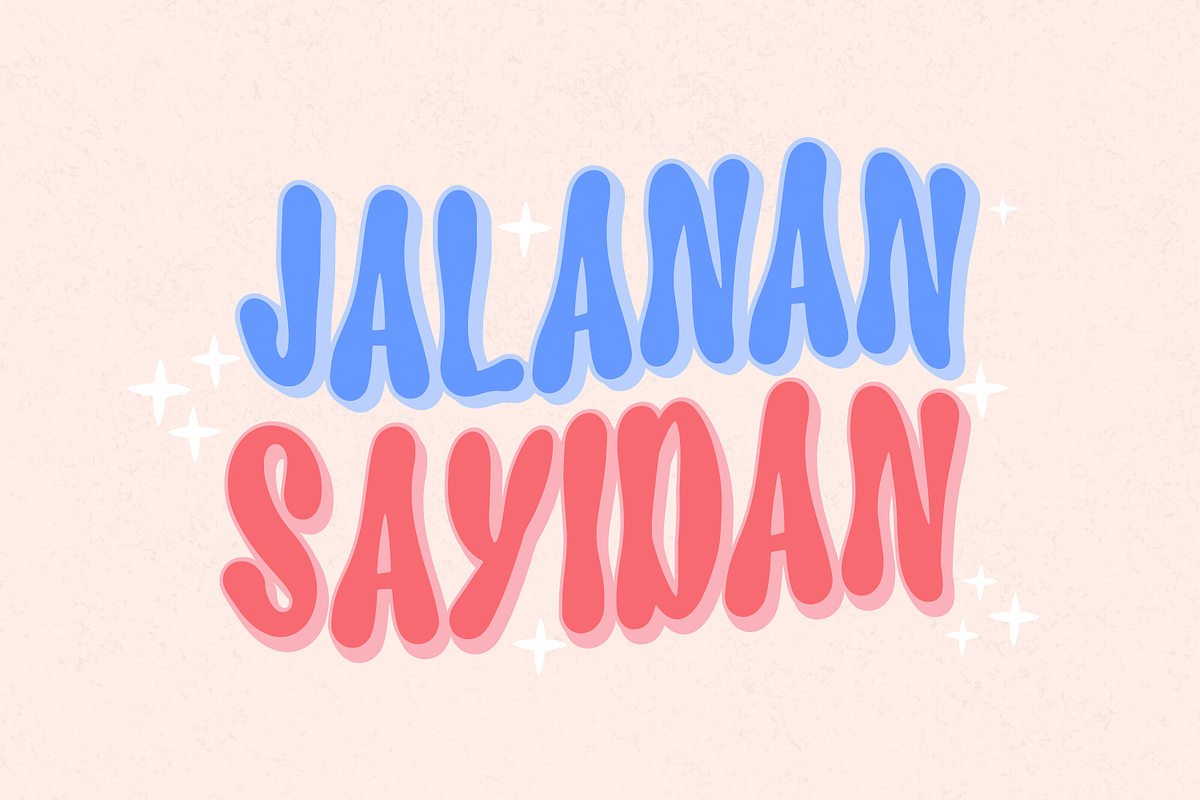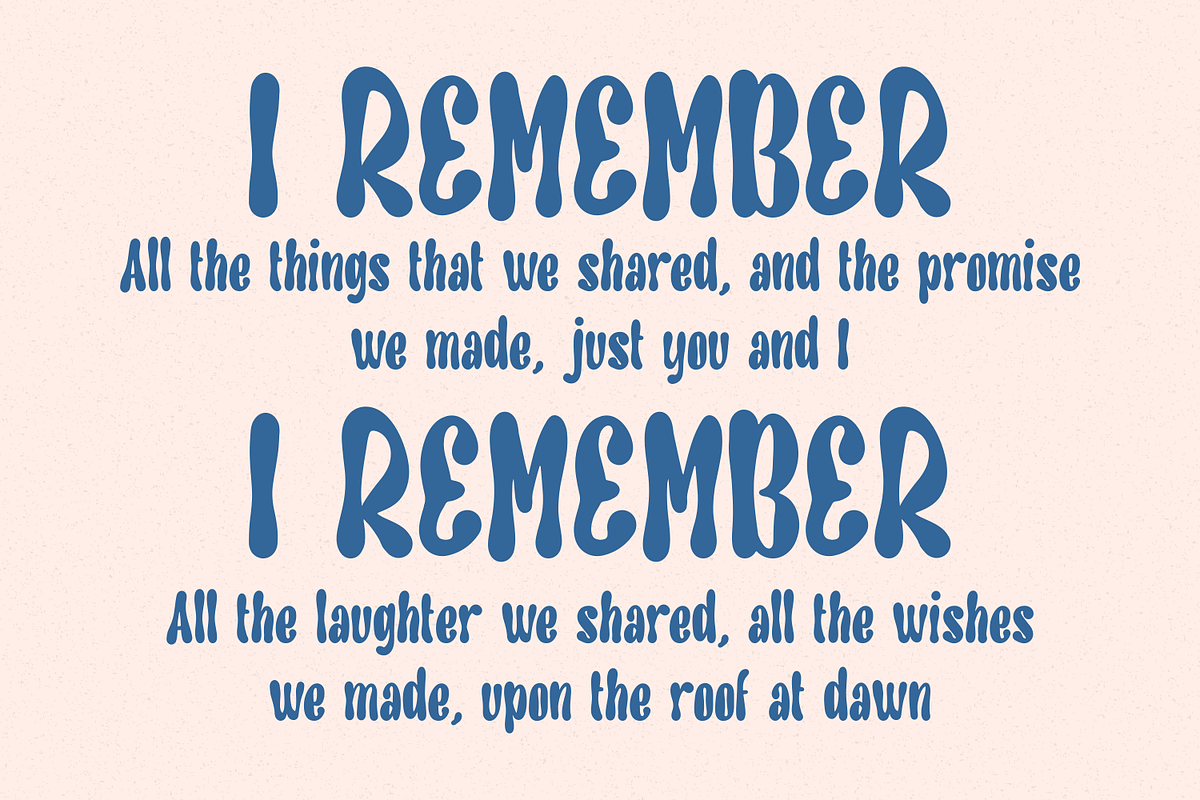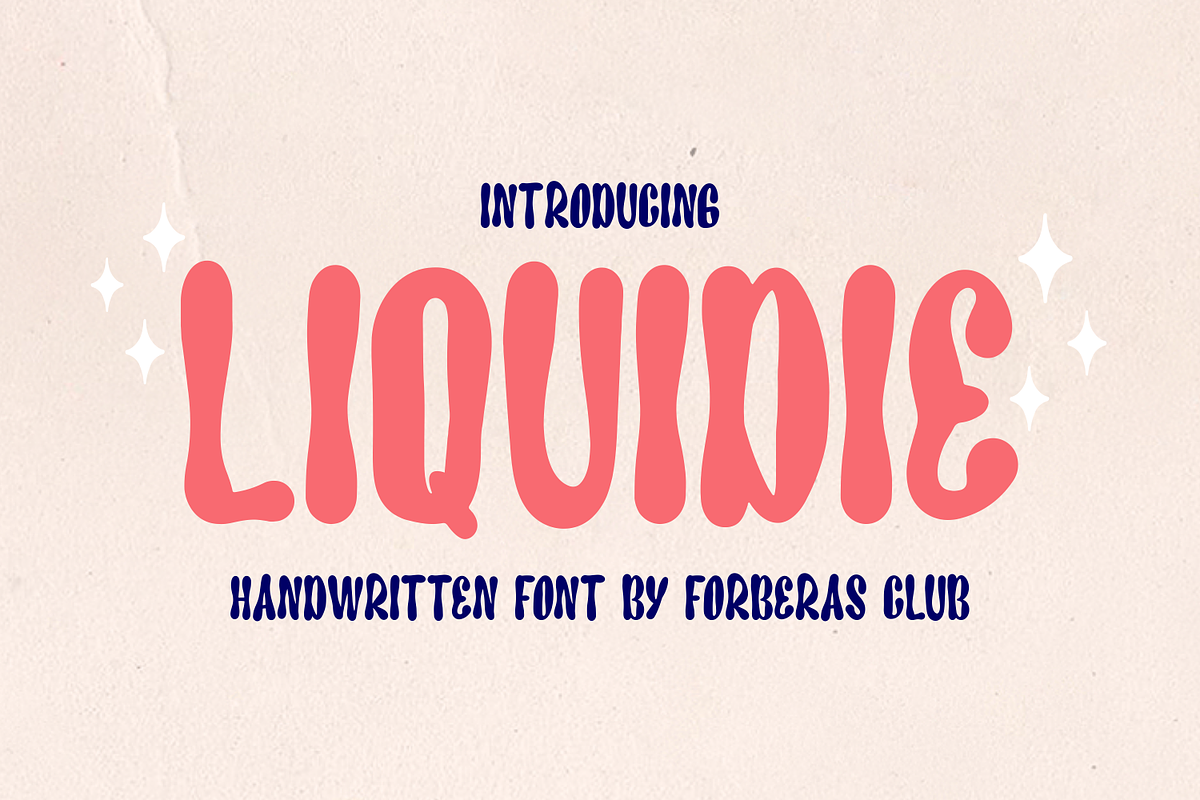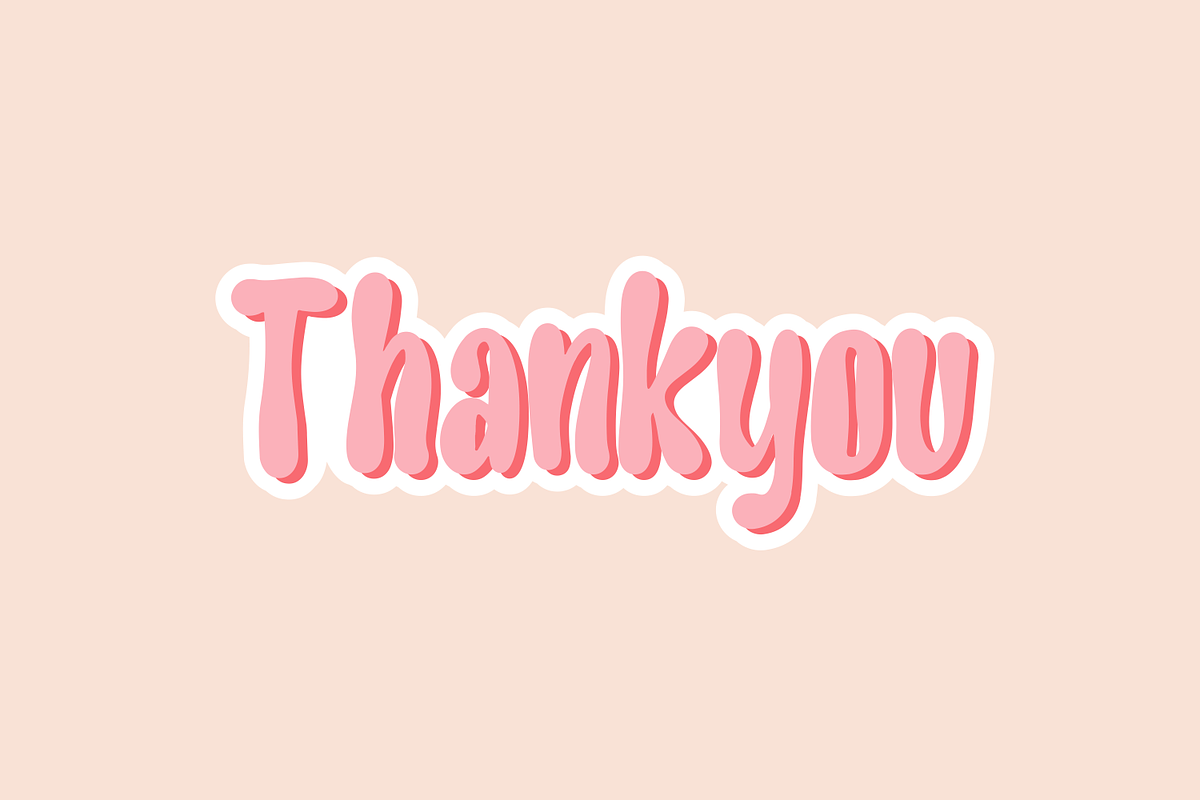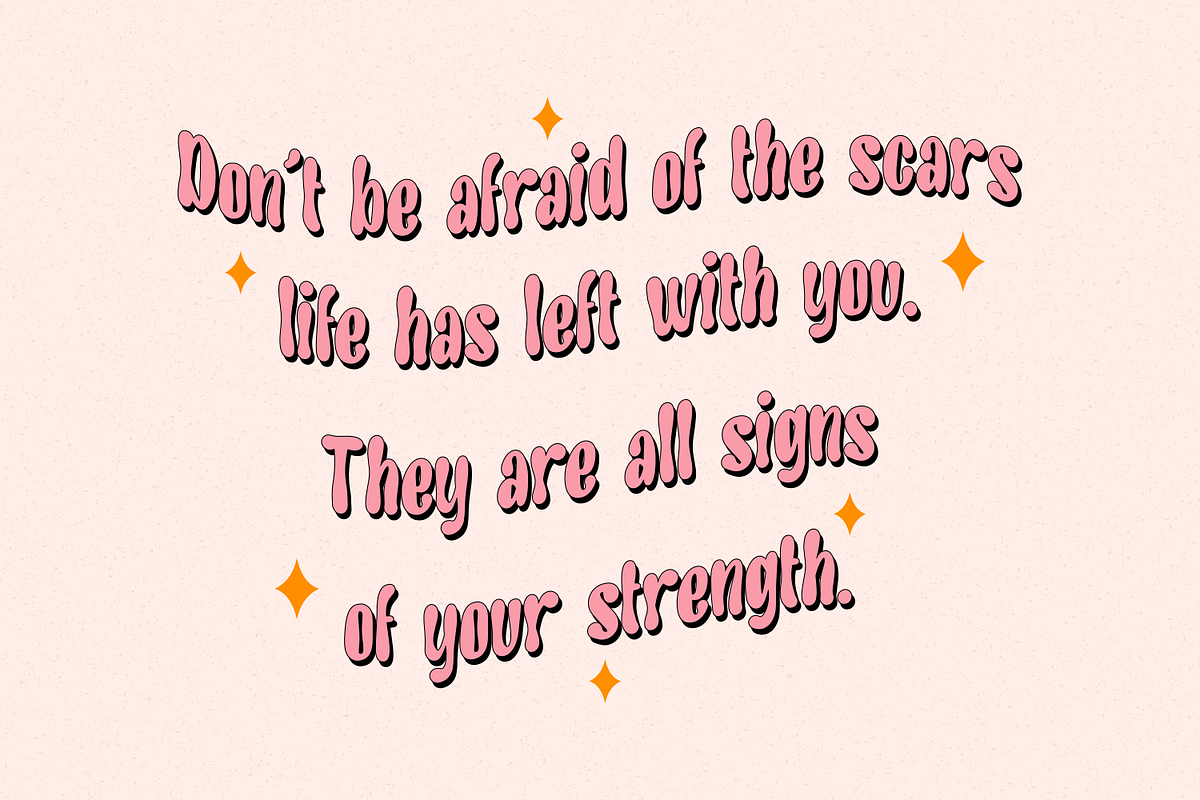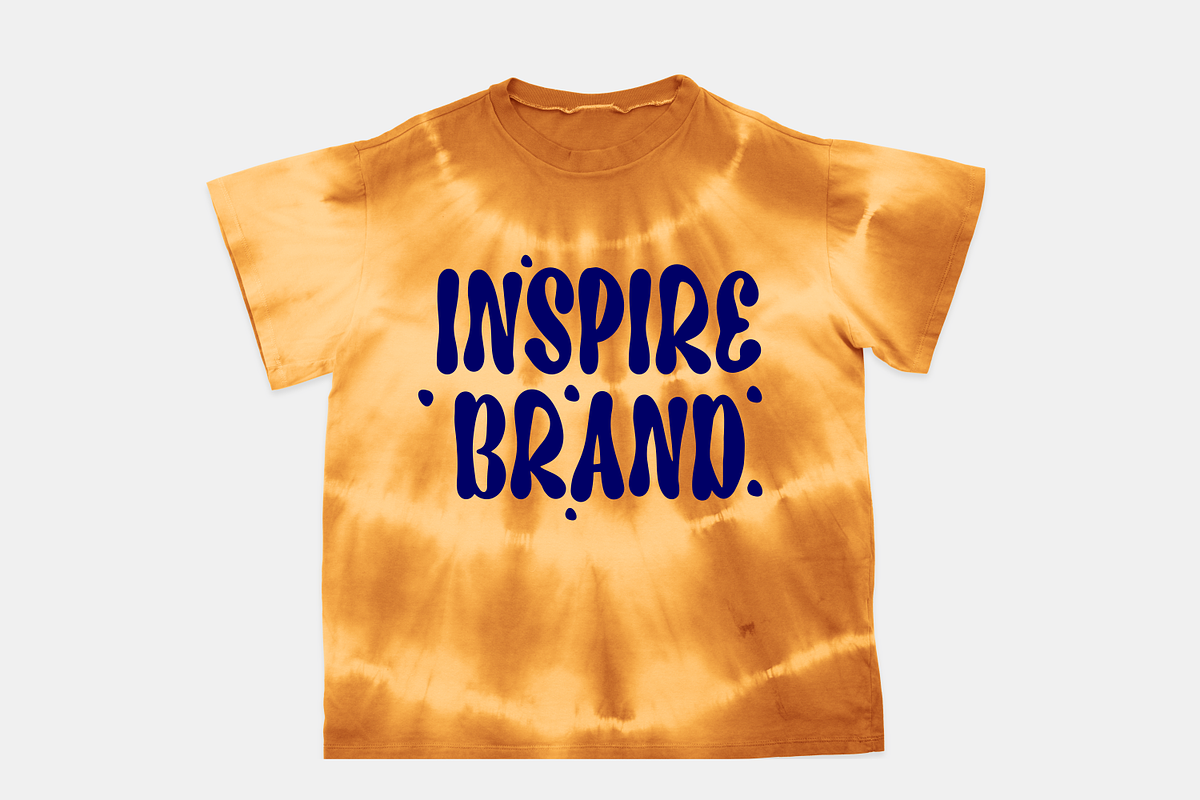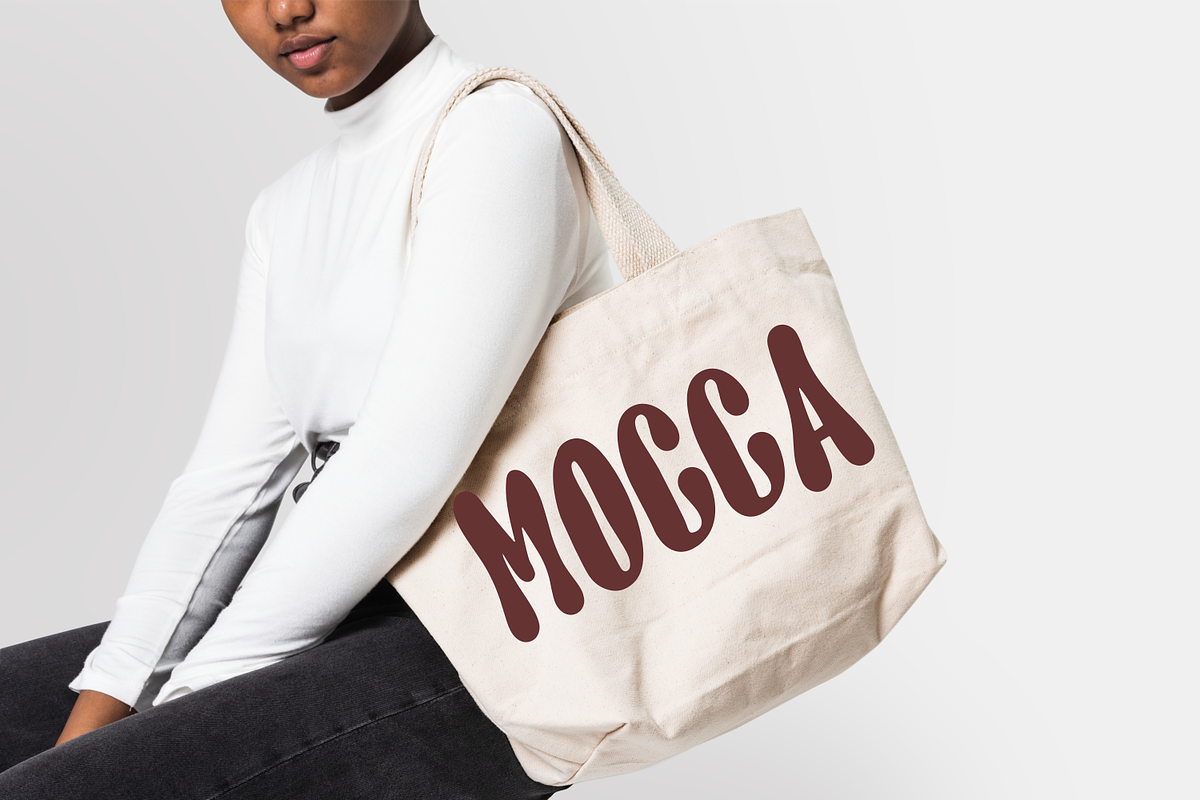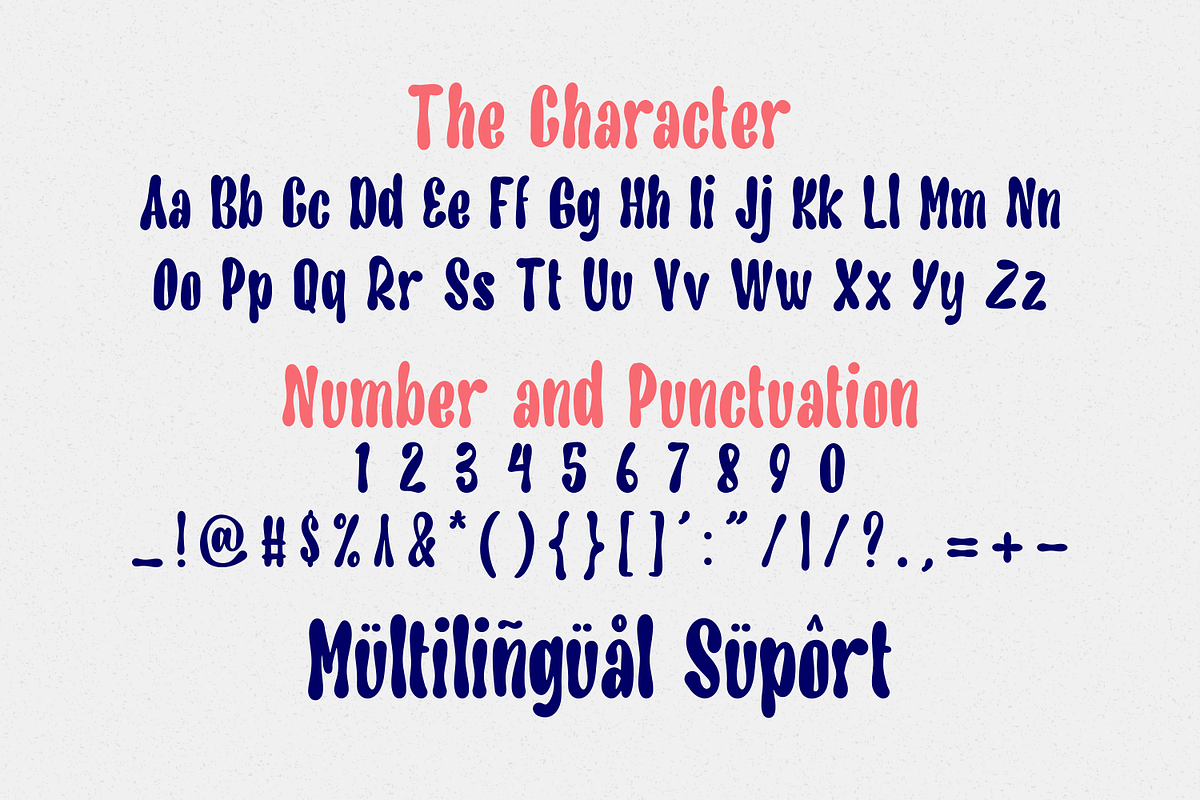
Liquidie | Fun Display
Introducing Liquidie by Forberas
Modern and beautiful handwritten script font! Great for wedding greeting cards, logos, branding materials, Invitation, business cards, quotes, posters, Cricut artwork and more!